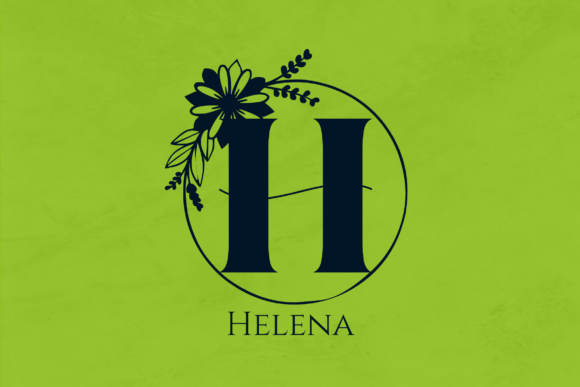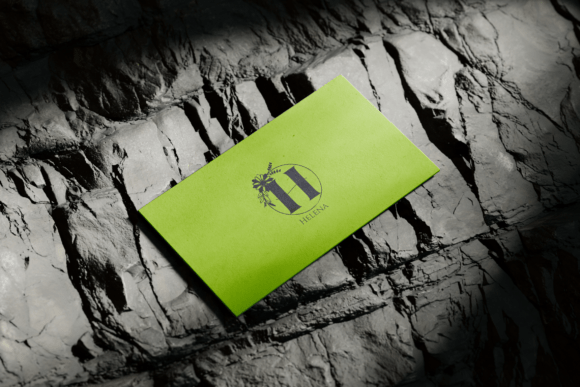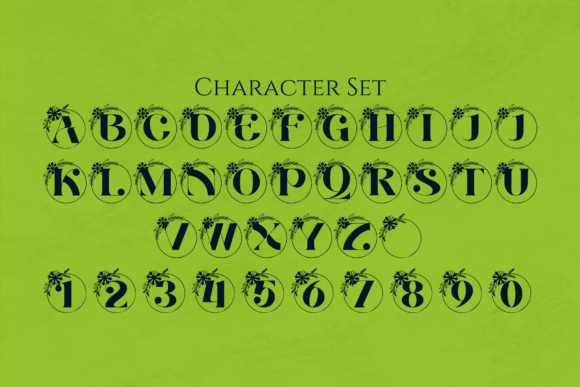
Introducing Astrid Monogram Font: Elevate Your Designs with Elegance and Versatility
In the realm of typography, few fonts manage to capture the essence of luxury and sophistication as effectively as Astrid Monogram Font. This exquisite typeface is meticulously crafted to bring a touch of elegance and refinement to your monograms, logos, and designs. Whether you’re a designer, crafter, or simply someone who appreciates the art of beautiful typography, Astrid Monogram Font is poised to become your go-to choice for creating stunning visual content.
The Quintessence of Elegance and Versatility
Astrid Monogram Font is more than just a typeface; it’s an experience. Engineered to breathe life into your designs, this font is infused with a sumptuous elegance that sets it apart from the rest. Its multifaceted versatility makes it an ideal choice for a wide range of applications, from sophisticated logos and luxe branding to timeless keepsakes and wedding invitations. With Astrid Monogram Font, you can add a splash of distinction to your personal brand, making it truly unforgettable.
Refinement and Nuance
One of the standout features of Astrid Monogram Font is its sheer refinement. Each letterform is carefully crafted to exude a sense of luxury and sophistication, making it perfect for designs that demand a high level of elegance. The intricate nuances of this font add a layer of depth and complexity, elevating your designs and giving them an irresistible charm. Whether you’re creating wedding invitations, business cards, or bespoke gifts, Astrid Monogram Font is sure to impress.
The beauty of Astrid Monogram Font lies in its versatility. This font can be used in a multitude of design applications, including:
- Wedding Invitations: Create stunning wedding invitations that set the tone for a luxurious and unforgettable celebration.
- Luxe Branding: Elevate your brand with a sophisticated logo that exudes elegance and refinement.
- Stationery: Design bespoke stationery that showcases your personal style and sophistication.
- Keen keepsakes: Create timeless keepsakes that will be treasured for years to come.
Where Each Stroke Tells a Story
Astrid Monogram Font is more than just a typeface; it’s a narrative waiting to be told. Each stroke, each letterform, and each design element is carefully crafted to convey a sense of luxury and sophistication. When you use this font, you’re not just creating a design; you’re telling a story that resonates with your audience. Whether you’re a designer or crafter, Astrid Monogram Font gives you the tools to create something truly special.
Discover the Magic of Monogram Font
If you’re looking to elevate your designs and add a touch of elegance and sophistication, look no further than Astrid Monogram Font. This exquisite typeface is poised to become your go-to choice for creating stunning visual content that resonates with your audience. With its multifaceted versatility, refinement, and nuance, Astrid Monogram Font is the perfect choice for designers and crafters who demand the best.
Take Your Designs to New Heights
Astrid Monogram Font is more than just a typeface; it’s a gateway to new creative possibilities. By incorporating this font into your designs, you’ll be able to:
- Enhance your brand: Create a sophisticated logo that sets your brand apart from the rest.
- Elevate your designs: Add a touch of elegance and refinement to your designs, making them truly unforgettable.
- Expand your creative horizons: Explore new design possibilities and push the boundaries of what’s possible with Astrid Monogram Font.
In conclusion, Astrid Monogram Font is a game-changer for designers and crafters who demand the best. With its sumptuous elegance, multifaceted versatility, and refinement, this font is poised to become your go-to choice for creating stunning visual content. Discover the magic of Astrid Monogram Font and take your designs to new heights.